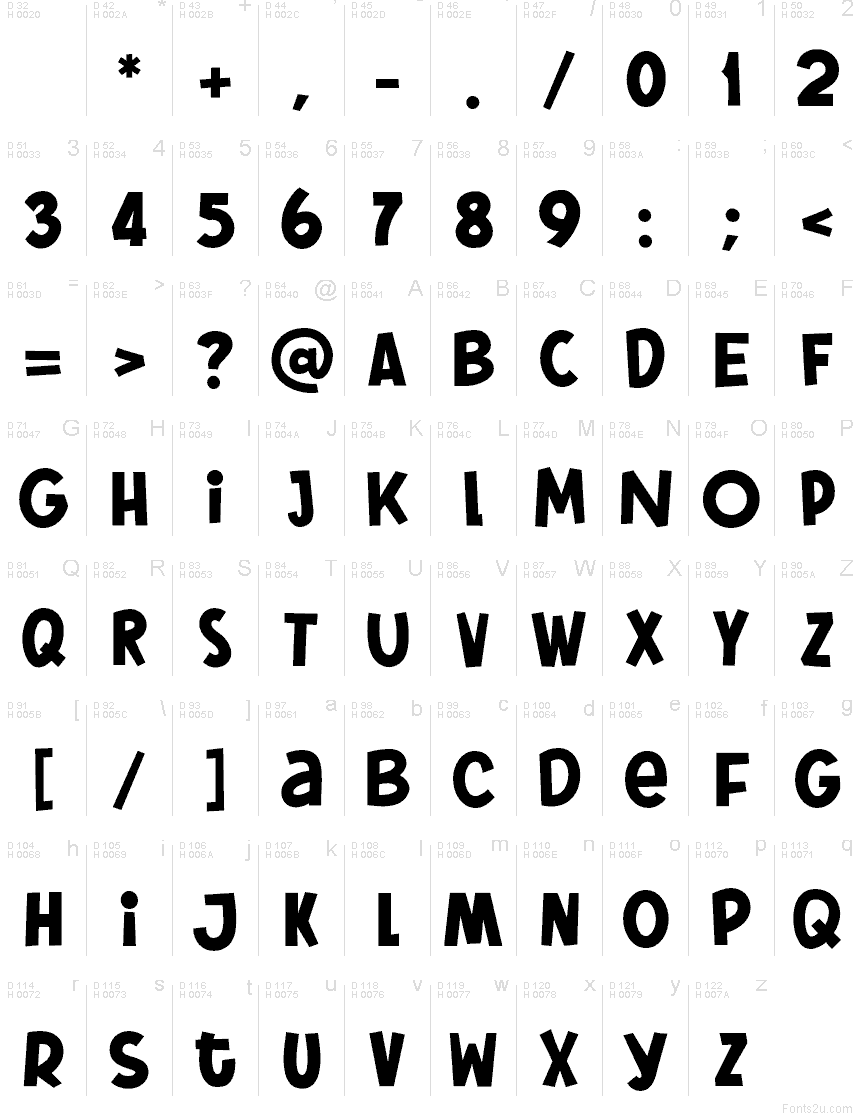
Onlink font by Afkari Studio is a free comic display typeface with loud, inky personality. The letters are chunky and slightly irregular, like they’ve been brushed in thick marker, giving every word a bouncy, shouty energy. Tight spacing and blocky forms make it read as one solid, attention-grabbing shape, great when you want your message to hit hard at a glance.
Onlink